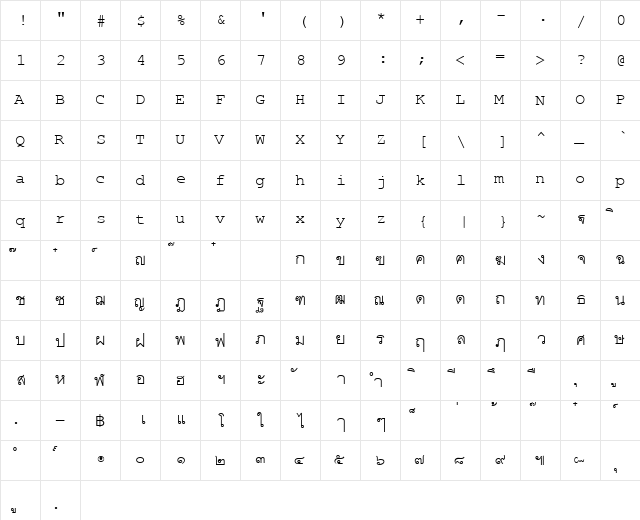
PhaisarnFixed Normal Font Preview
PhaisarnFixed Normal
Design Context for PhaisarnFixed Typeface
PhaisarnFixed is a composed and adaptable typeface that performs quietly and consistently across a wide range of design contexts.